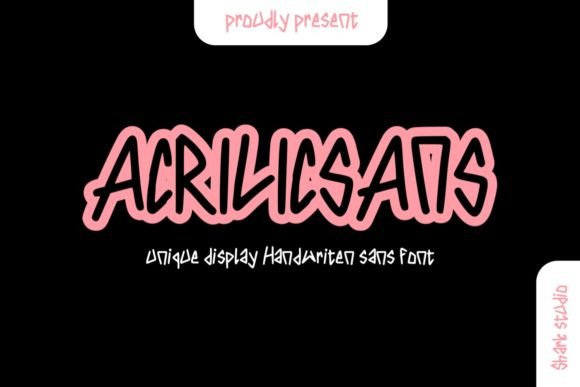
Unlocking the Dynamic Artistry of Acrilic Sans Font
I’ll never forget the design project that led me to discover Acrilic Sans. I was working on a branding campaign for a trendy new cafe, and I was struggling to find the perfect font that would capture their vibrant and youthful vibe. The client wanted something that would appeal to a global audience, and I was on a tight deadline. That’s when I stumbled upon Acrilic Sans, and it was love at first sight! ✨
With its bold, energetic, and artistic flair, Acrilic Sans instantly elevated my design game. I was able to craft a stunning visual identity that not only met but exceeded my client’s expectations. In this article, I’ll share my experience with Acrilic Sans, its features, and how to make the most of this incredible font.
An Honest Review of Acrilic Sans
What I Love About Acrilic Sans
- ✨ Universal appeal: Acrilic Sans has a unique ability to transcend linguistic and cultural boundaries, making it perfect for global branding projects.
- ✅ Multilingual support: This font supports a wide range of languages, allowing you to create content that caters to diverse audiences.
- 💥 Dynamic energy: Acrilic Sans exudes a lively and artistic vibe that’s sure to capture attention and leave a lasting impression.
- 📈 Versatility: Whether you’re designing a logo, brochure, or social media graphics, Acrilic Sans adapts seamlessly to various design contexts.
While Acrilic Sans is an exceptional font, there are a few minor quirks to be aware of:
- ⚠️ Legibility at small sizes: Acrilic Sans can be a bit challenging to read at very small font sizes (below 10pt). It’s best to use it at larger sizes or for headlines.
- 🤔 Glyph limitations: While Acrilic Sans has an impressive range of glyphs, some users may find that it lacks certain specialized characters.
The Story Behind Acrilic Sans
Acrilic Sans was designed by a team of typographers who sought to create a font that would inspire creativity and energy. The design process involved experimenting with bold shapes, vibrant colors, and dynamic patterns. The result is a font that radiates a universal appeal and versatility.
| Font Name | Acrilic Sans Font |
| Author | SharkStudio |
| Is Acrilic Sans suitable for body text? | While Acrilic Sans is primarily designed for headlines and titles, it can be used for body text in larger sizes (above 12pt). However, for optimal readability, consider using a complementary font for body text. |
| Does Acrilic Sans support non-Latin languages? | Yes, Acrilic Sans has multilingual support, including non-Latin languages such as Cyrillic, Greek, and many others. |